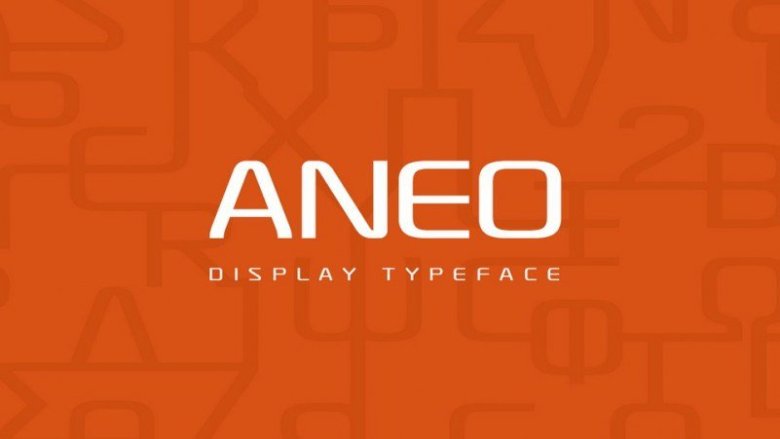
Aneo Font Family
Aneo is a family of unicode fonts supporting basic Latin and Greek, it comes in Regular, Bold, Italic, Bold Italic variants plus a secondary version using wider characters. Aneo is mostly a strong display typeface, intended for headings and short passages of text.